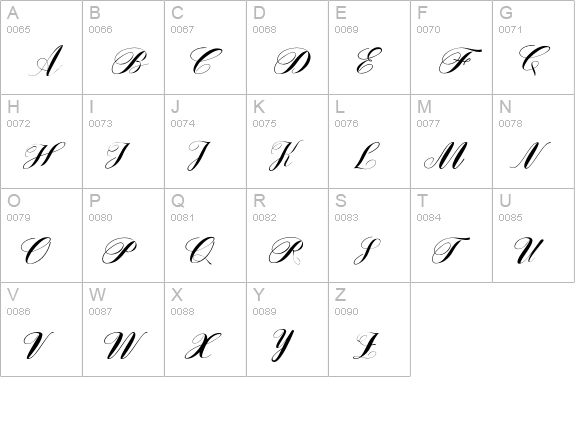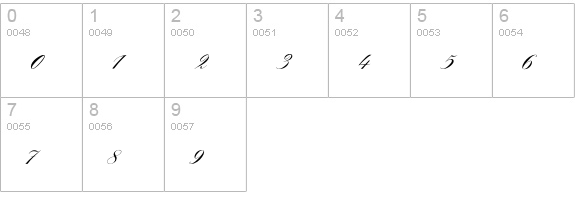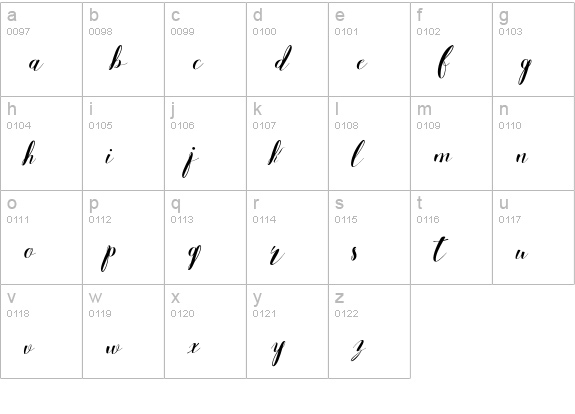
Zilvia Script Font Details
Zilvia Script is a charming and elegant handwritten font that exudes sophistication and style. With its delicate curves and flowing lines, this font is perfect for adding a touch of flair to your designs. Whether you're creating wedding invitations, branding materials, or social media graphics, Zilvia Script will elevate your projects to a whole new level. The best part? Zilvia Script is completely free to download at FontsMarket.com. That's right, you can add this stunning font to your collection without spending a dime. Don't miss out on the opportunity to enhance your designs with the beauty of Zilvia Script. Download it now and let your creativity soar!